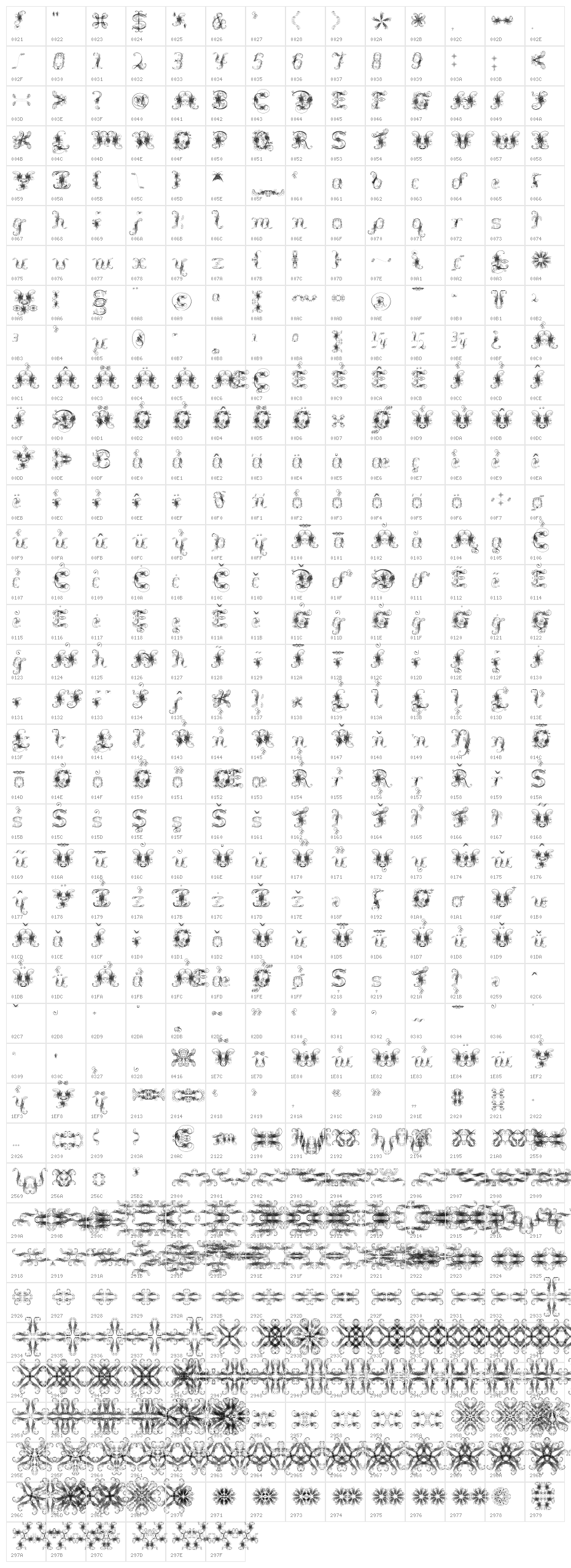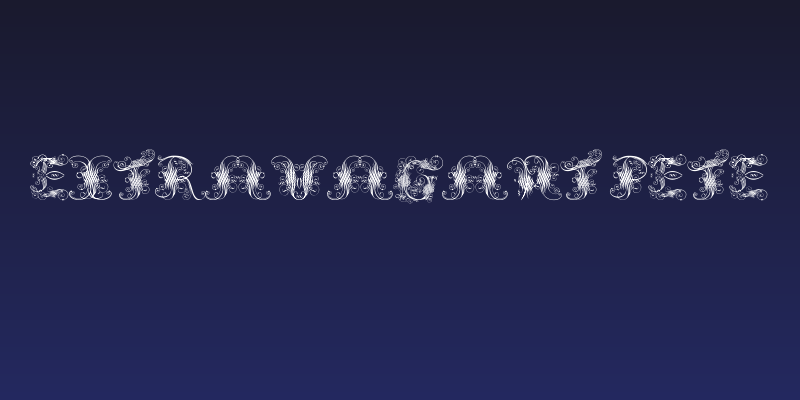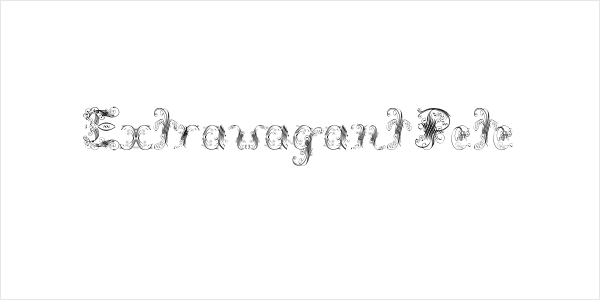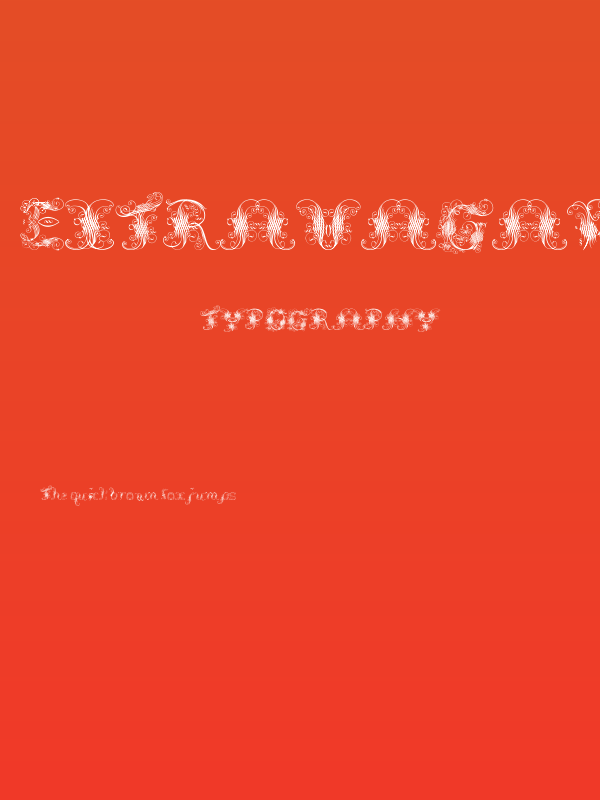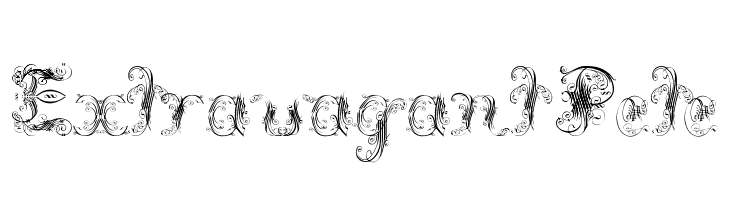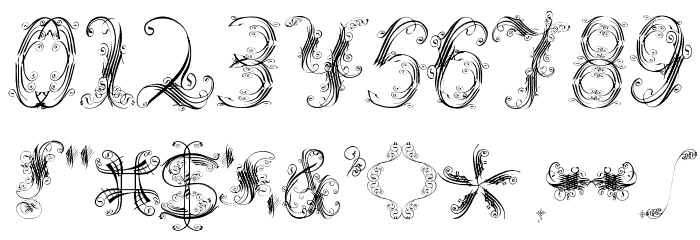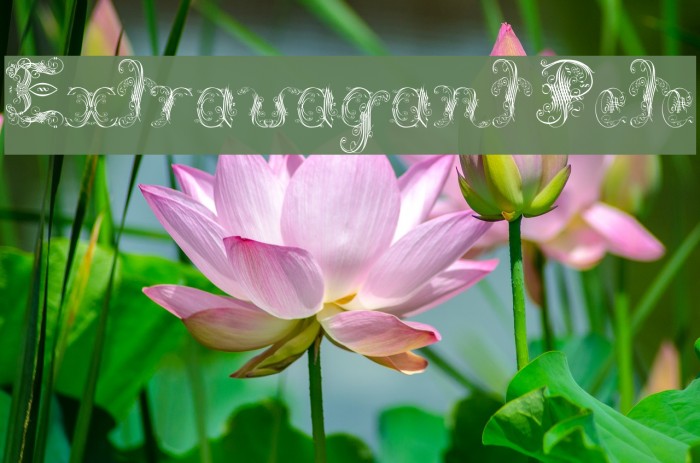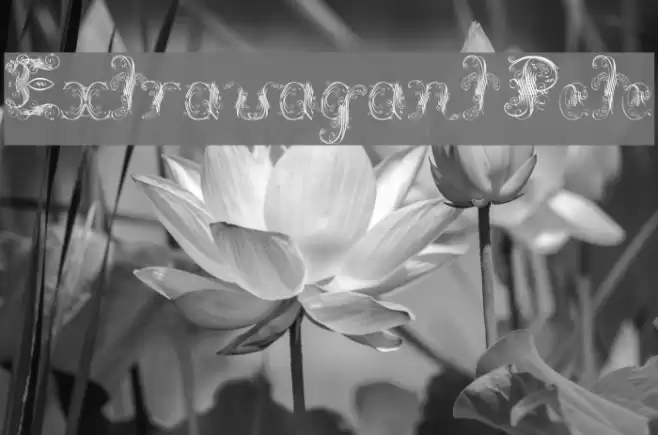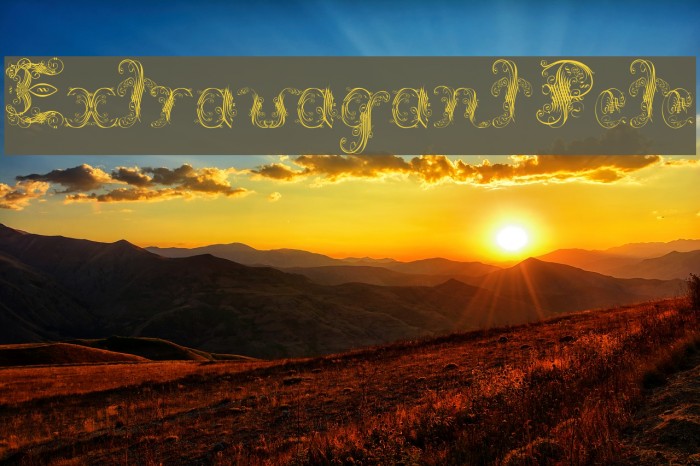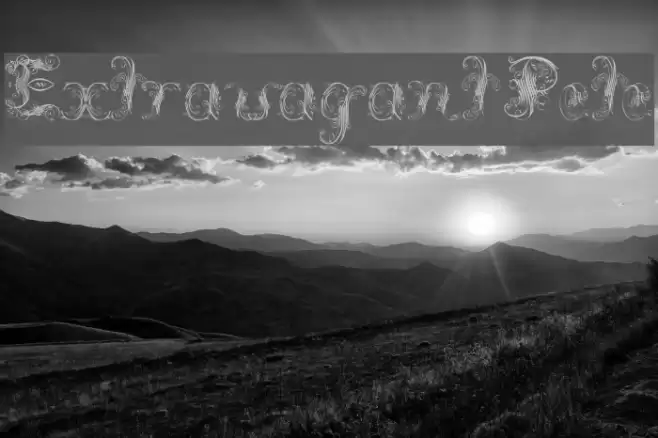
Extravagant Pete Font
| 用途 | Logos, Invitations, Artistic Projects |
| おすすめプロジェクト | Ideal for wedding invitations, luxury branding, artistic posters, and decorative headlines. |